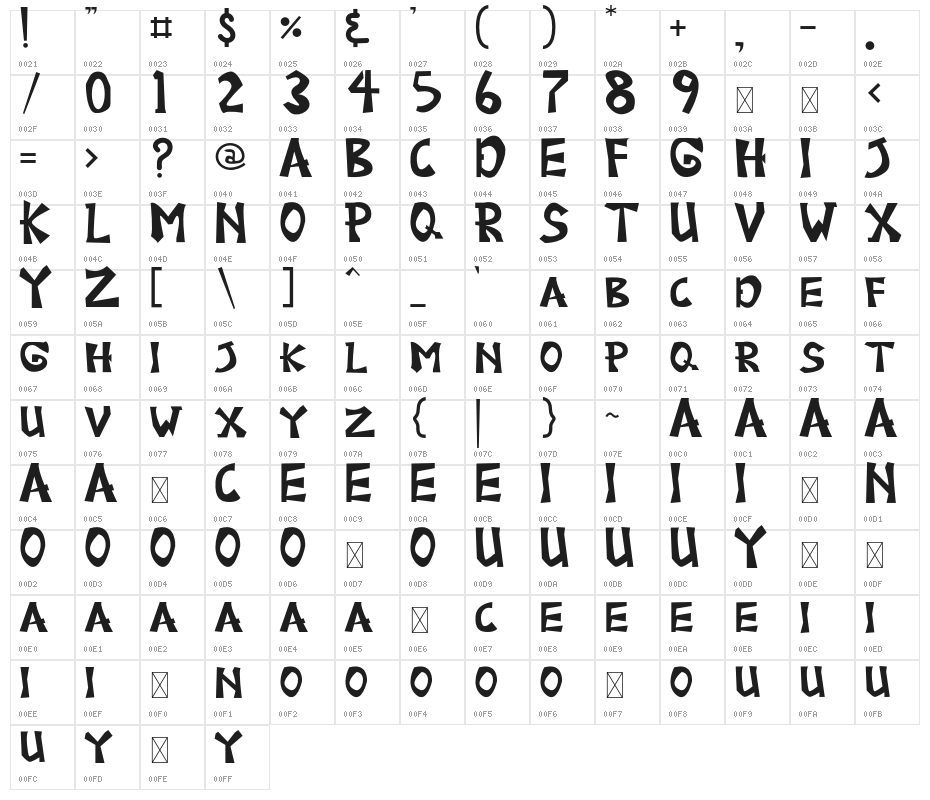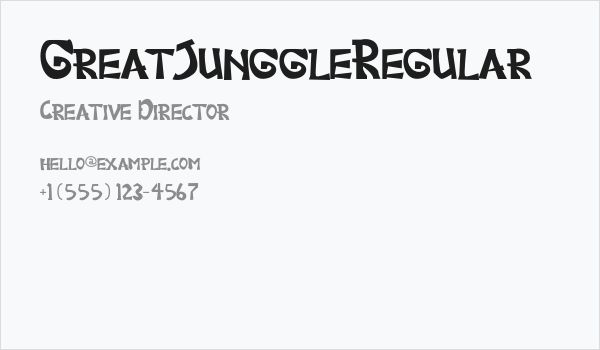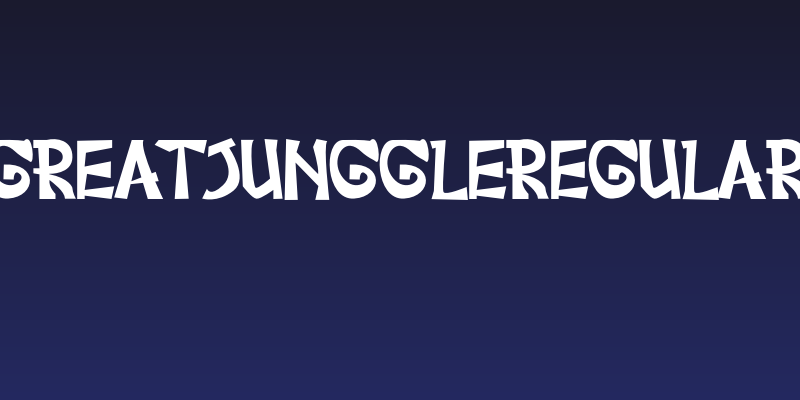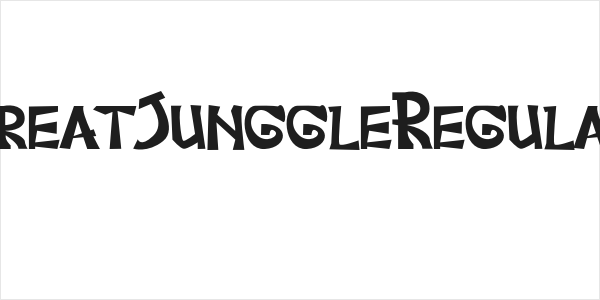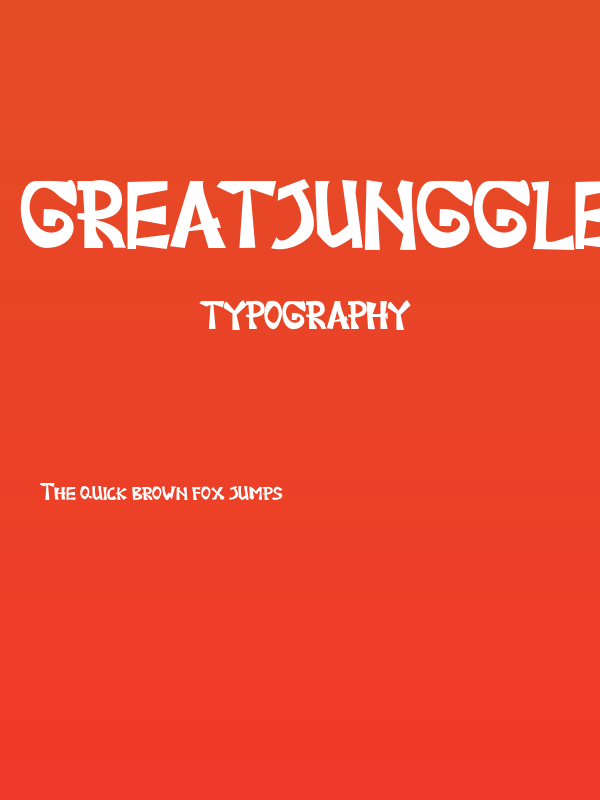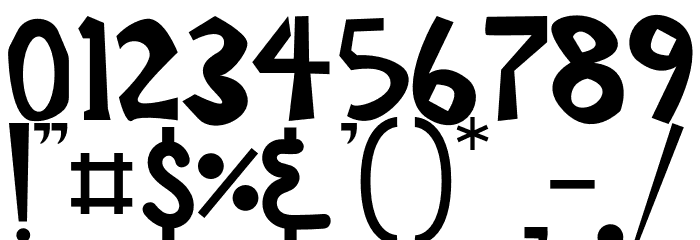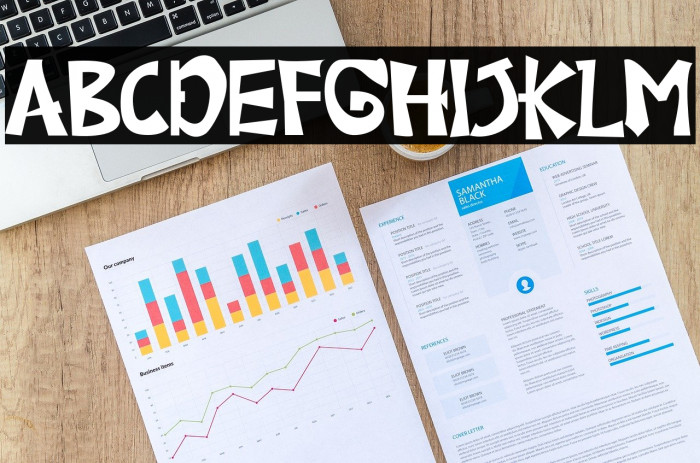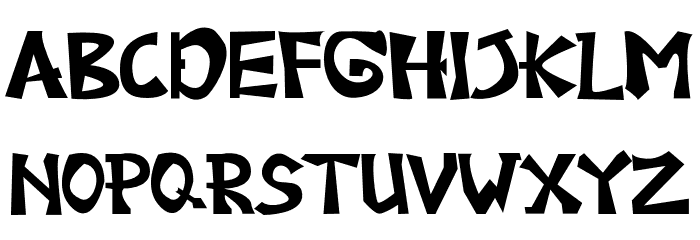
GreatJunggleRegular Font
GreatJunggleRegular Description
This font features a bold and playful design with exaggerated curves and angles, giving it a whimsical and dynamic appearance. The uppercase letters are particularly striking, with unique shapes that make each character stand out. The lowercase letters maintain the same playful style, ensuring consistency throughout the typeface. Numbers and special characters are equally bold and distinctive, adding to the font's overall charm. The thick strokes and irregular shapes suggest a hand-drawn quality, making it ideal for projects that require a fun and informal touch.